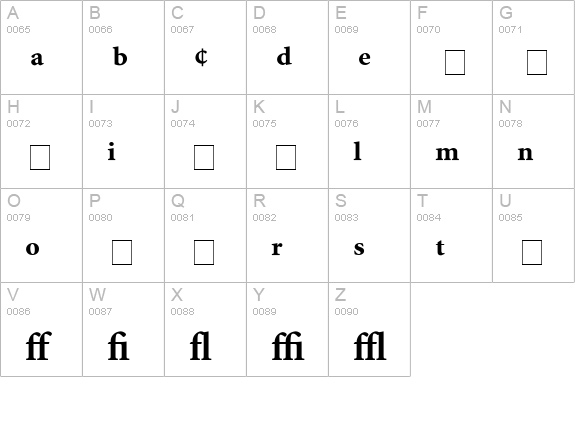
Atlantix Pro Black SSi Bold Font Details
Atlantix Pro Black SSi Bold is a maximum-weight, dramatic variant in the Atlantix typeface family \xE2\x80\x94 well suited to maximum-impact headlines, posters, and packaging.
Atlantix Pro Black SSi Bold font is a bold and modern typeface that exudes strength and sophistication. With its clean lines and sharp edges, this font is perfect for creating eye-catching headlines, titles, and branding materials. The bold weight of this font commands attention and makes a powerful statement in any design project. And the best part is, Atlantix Pro Black SSi Bold font is available for free download at FontsMarket.com. You can easily access this stylish font and elevate your designs with its sleek and professional look. Whether you're working on a poster, logo, website, or any other creative project, Atlantix Pro Black SSi Bold font will add a touch of elegance and impact. Download it now and take your designs to the next level!